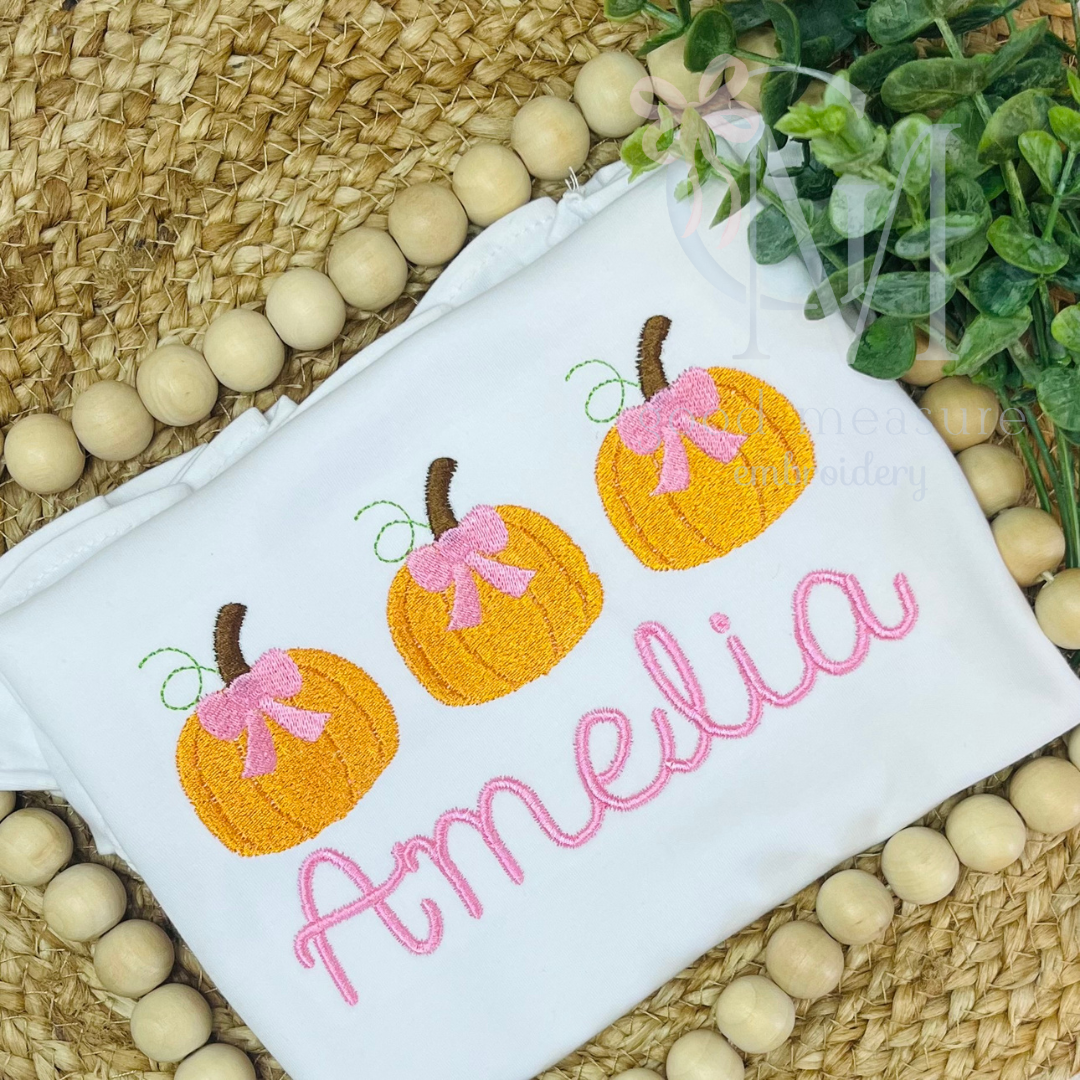
The Betsy Bold Font Embroidery Design
This file includes both capital and lowercase letters (A-Z) for the Betsy Bold font - a satin stitch script hand lettered font in sizes 1, 1.5, 1.75, 2, 2.5, 2.75, and 3 inches.